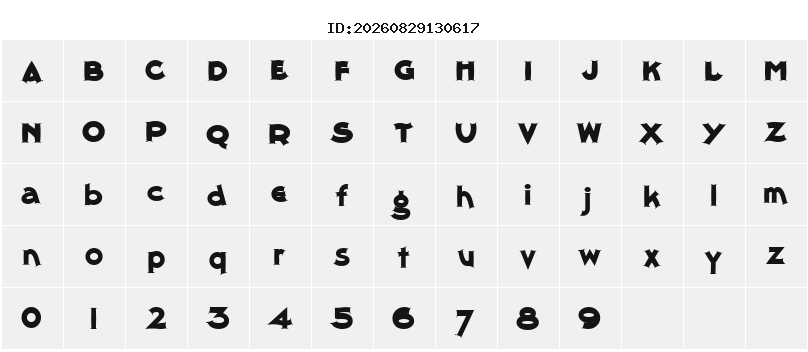
• Font Name: Thimble Theatre Nf
• Manufacturer: Nick Curtis
About Thimble Theatre Nf.ttf
Thimble Theatre Nf.ttf is a modern, elegant sans-serif font designed for ultimate readability and visual harmony. Perfect for branding, headlines, web design, and print materials.